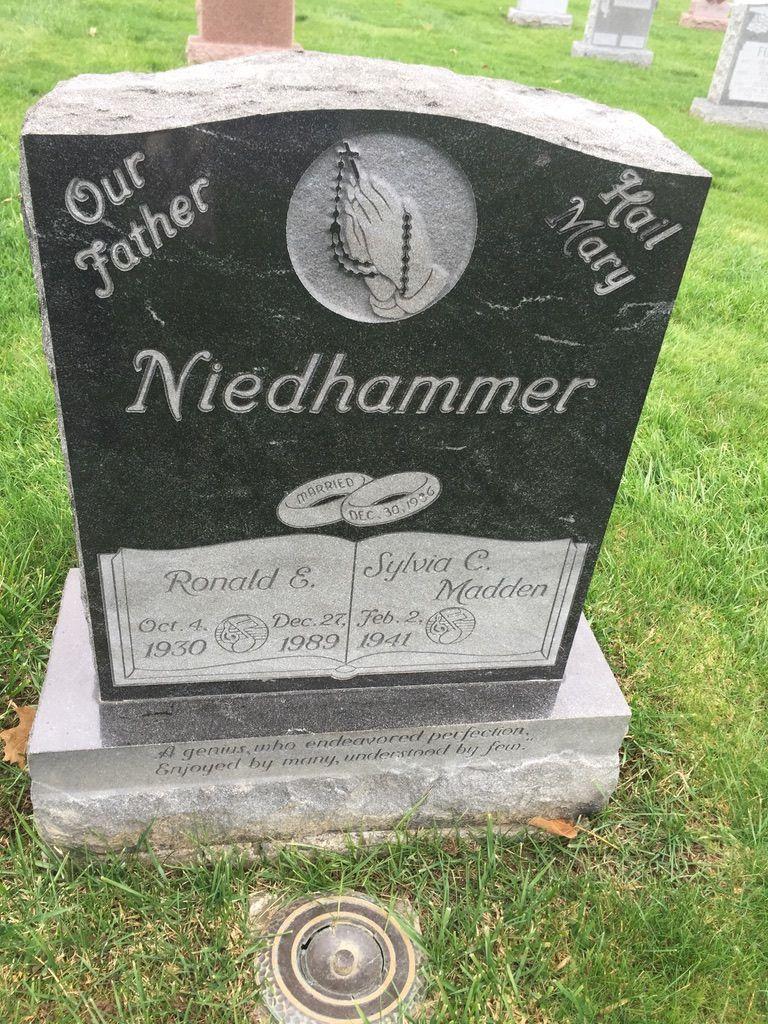
Font ID…Final Date
Any help on this font is appreciated…it seems like it’s on the tip of my tongue but I can’t remember it!!
Hello, this is believed to be a custom font designed by the since closed down EC Crooks Memorial Company out of Carthage, New York. It is loosely based on a script alphabet in an old Vermont Marble Company lettering book, and is similar (though there are many obvious differences) to a font in Cochran’s Monumental Designer software, named “Roman Modified Script”, which is also based on the same script alphabet from the Vermont Marble Company.